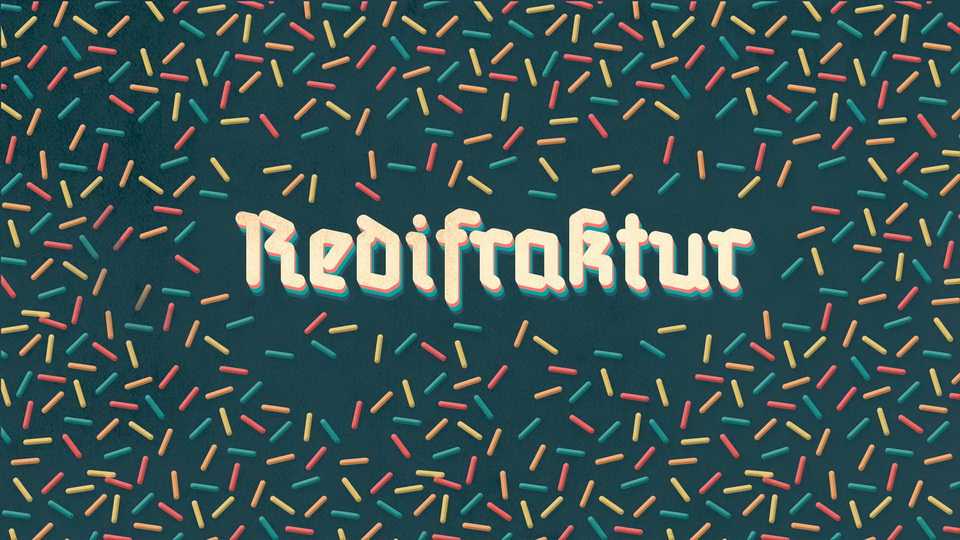
Download RediFraktur font, a variation of the gothic script that imitates the broken shape of the fraktur using a simulation of a redis pen that gives equal thickness to the rounded lines at its ends.
Designer: Jakub Stanski